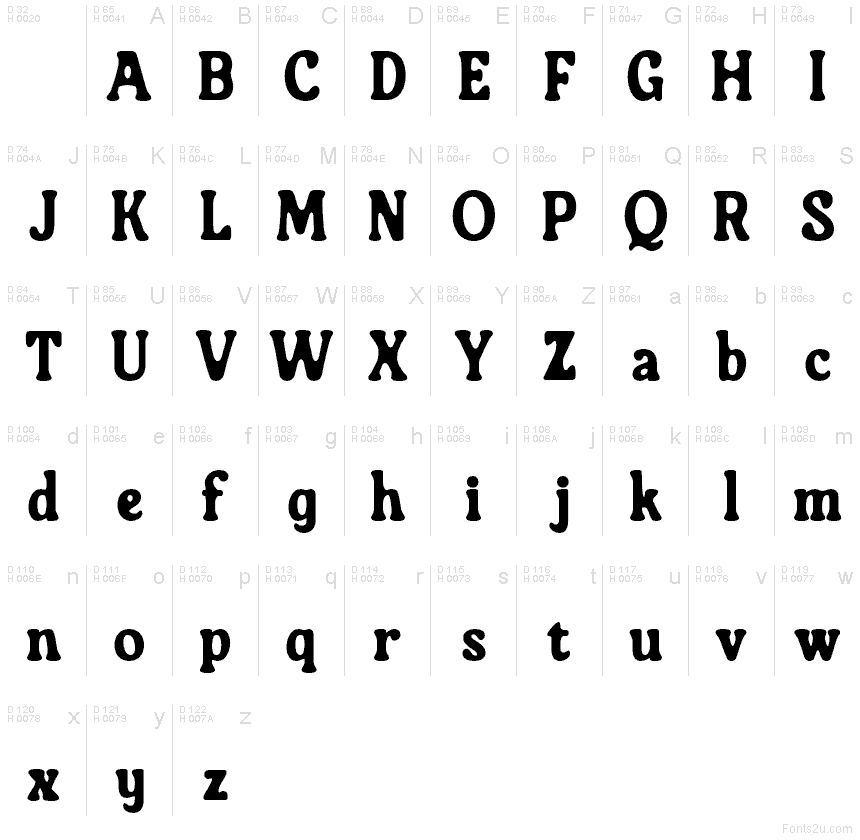
CSBolineDrawn-Regular Demo
CS Boline Drawn font by Craft Supply Co. beautifully captures retro influences with slightly whimsical and vintage charm. Its bold and distinctive presence evokes a sense of nostalgia, reminiscent of mid-century typefaces, making it perfect for modern design projects with a twist.
This free display font is ideal for vintage-themed branding, retro posters, playful editorial titles, packaging design, T-shirt graphics, event invitations, book covers, restaurant menus, website headers, and promotional materials.
CS Boline Drawn Demo